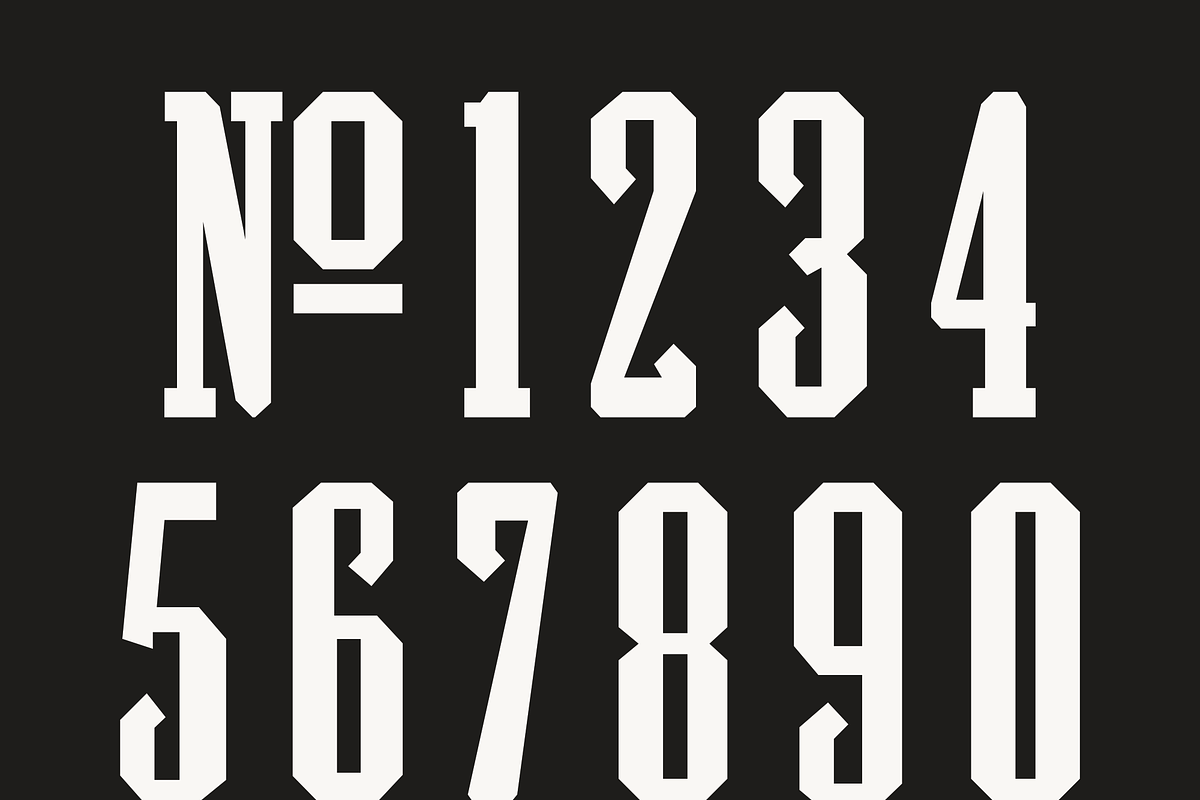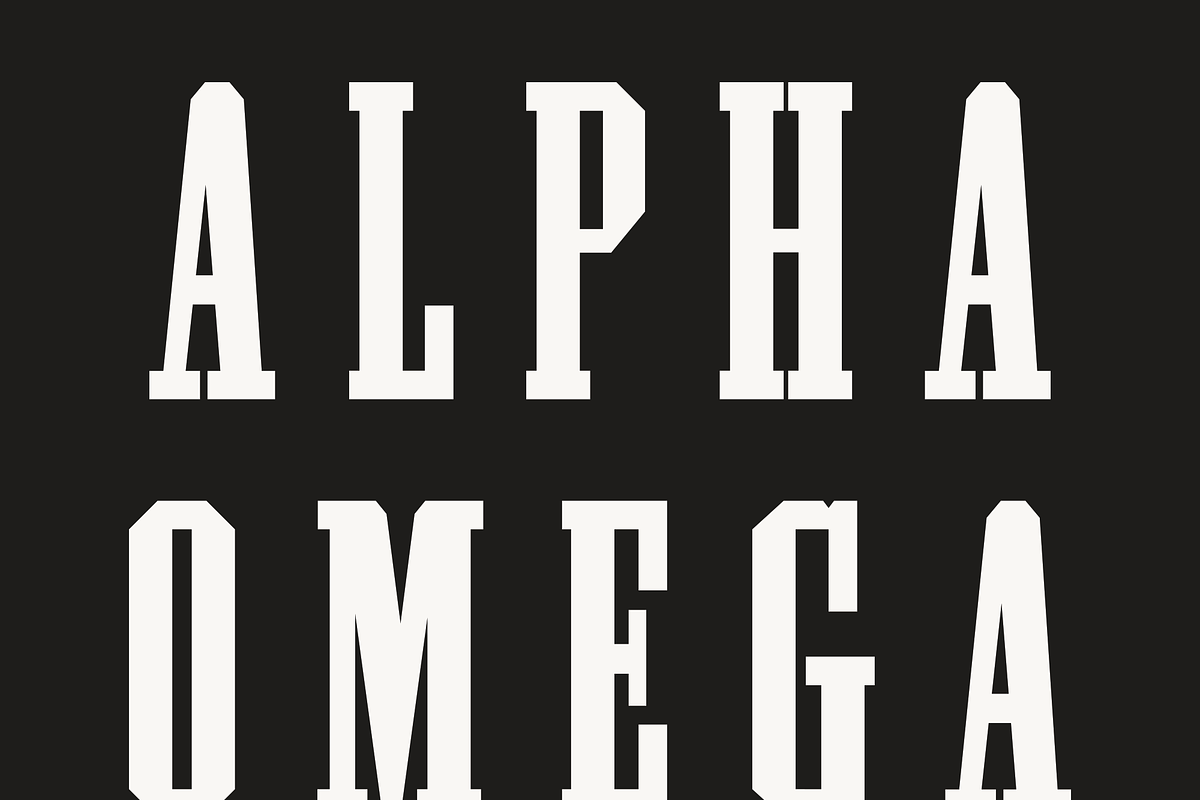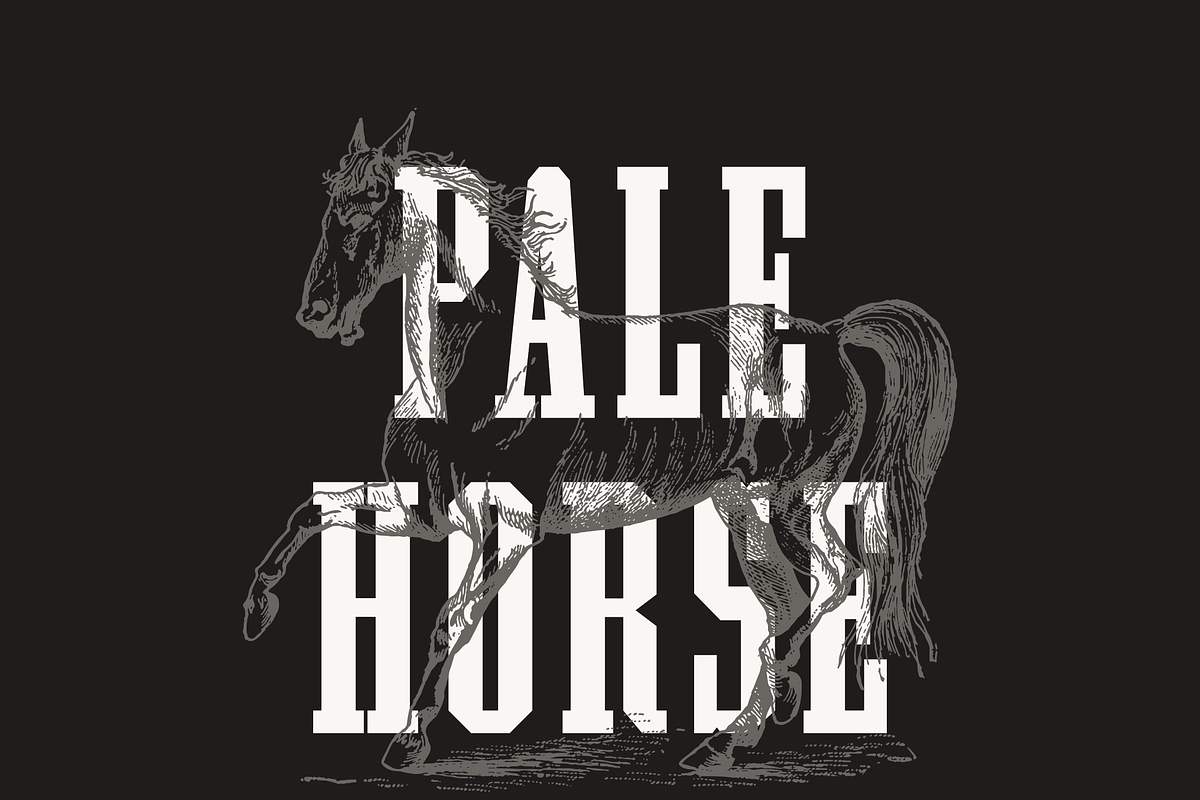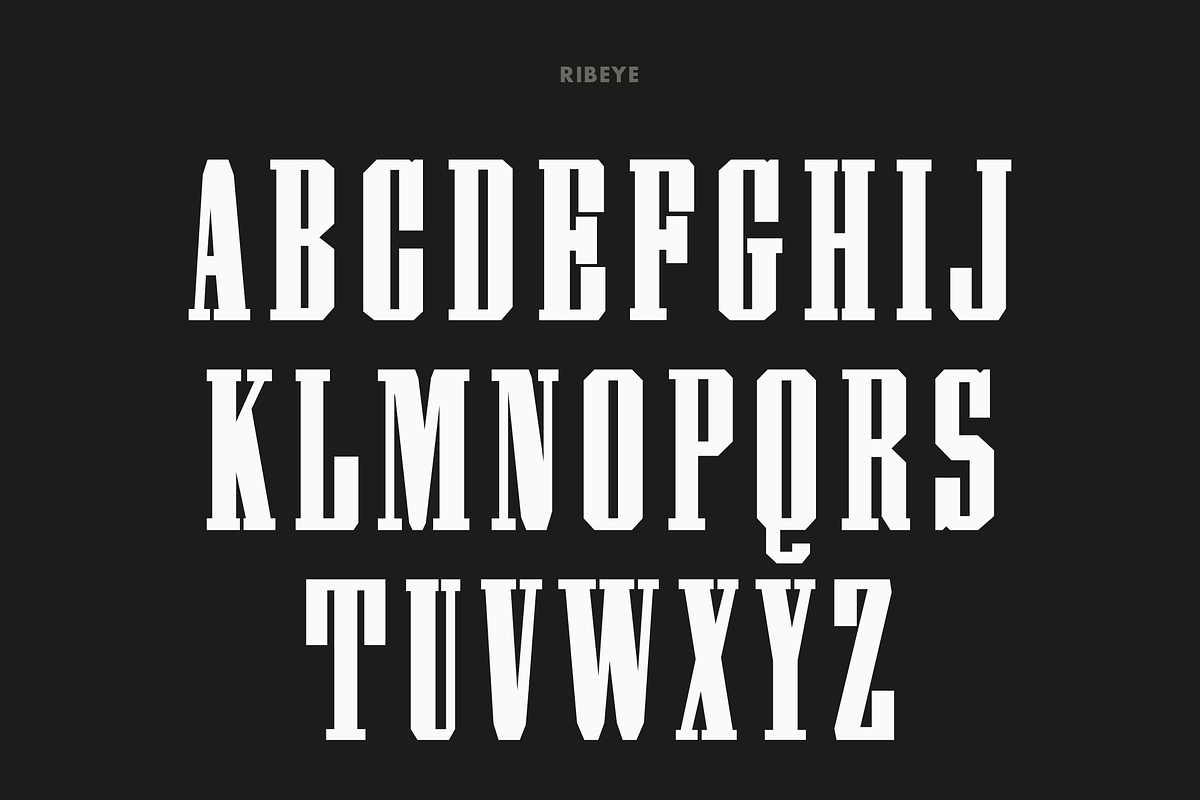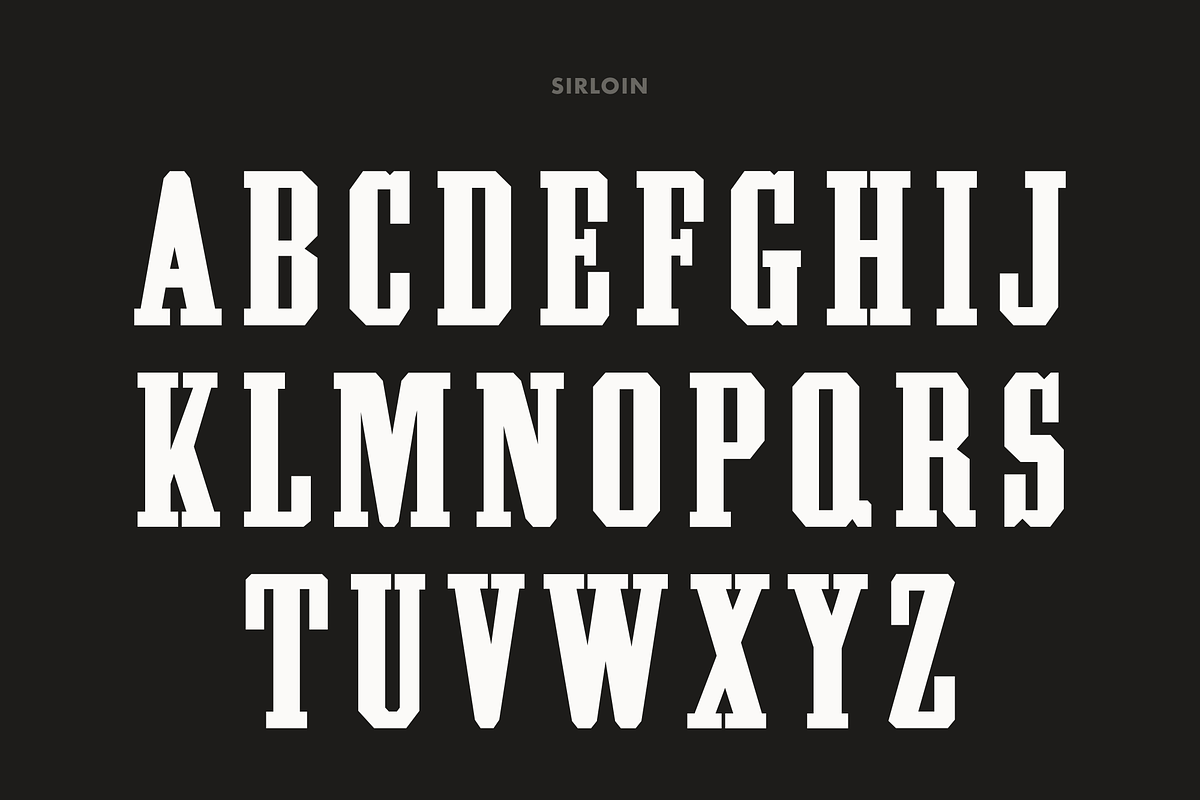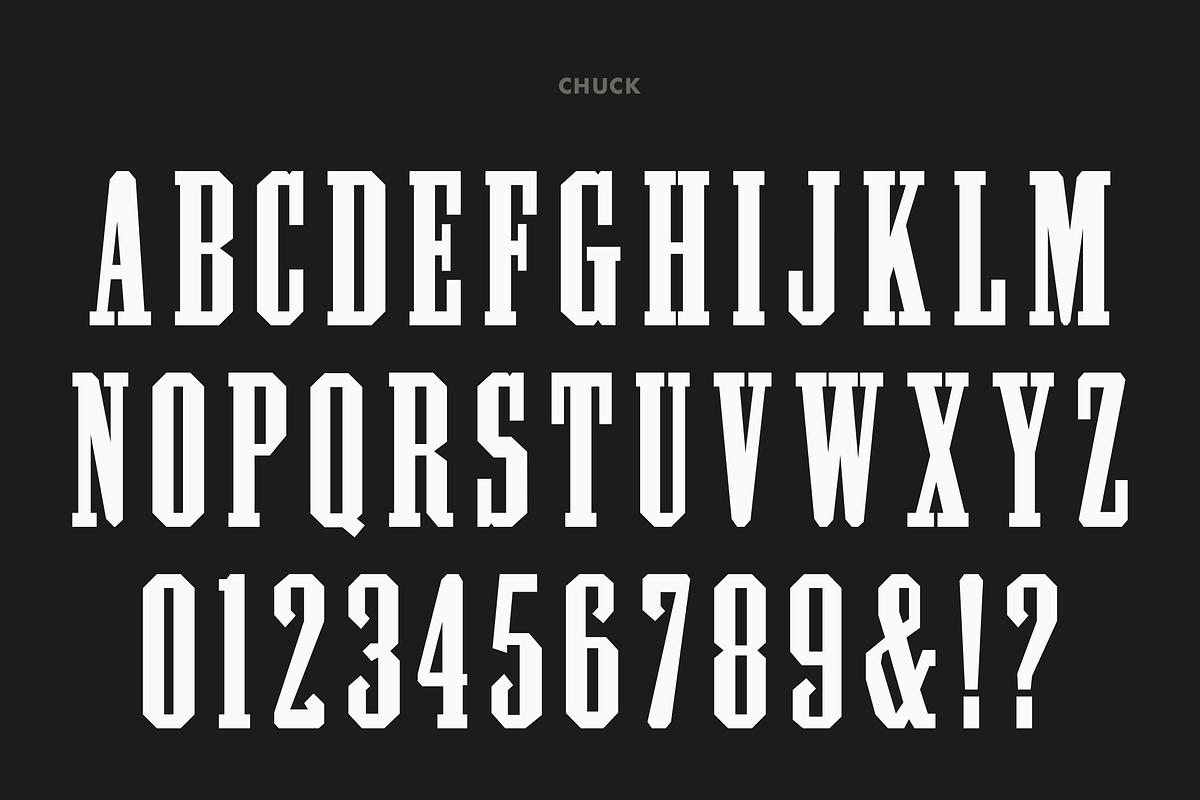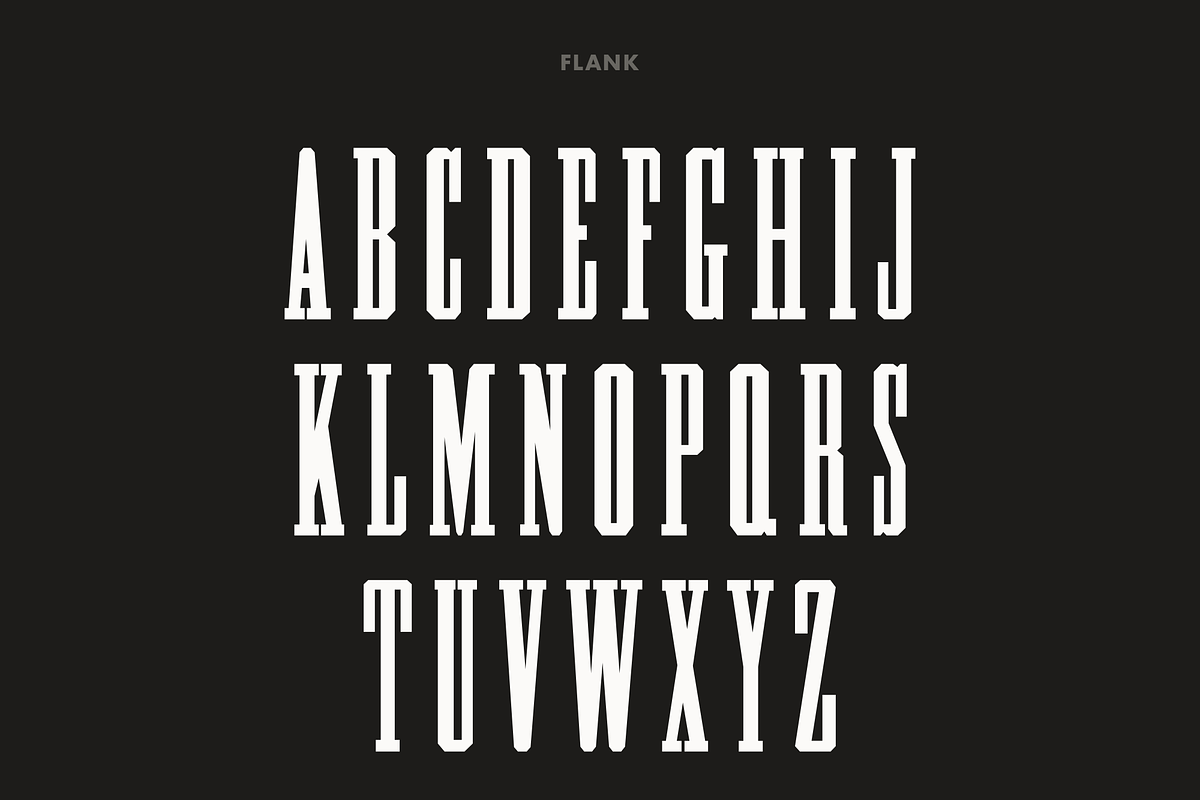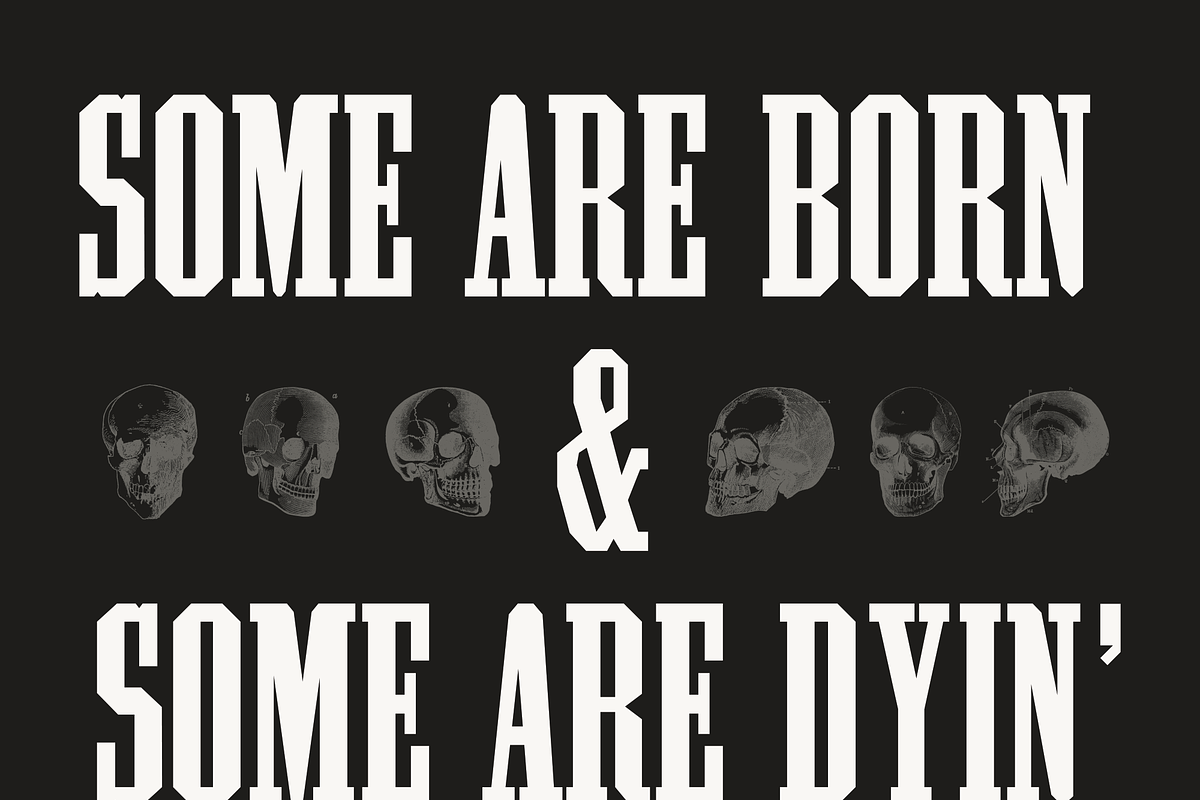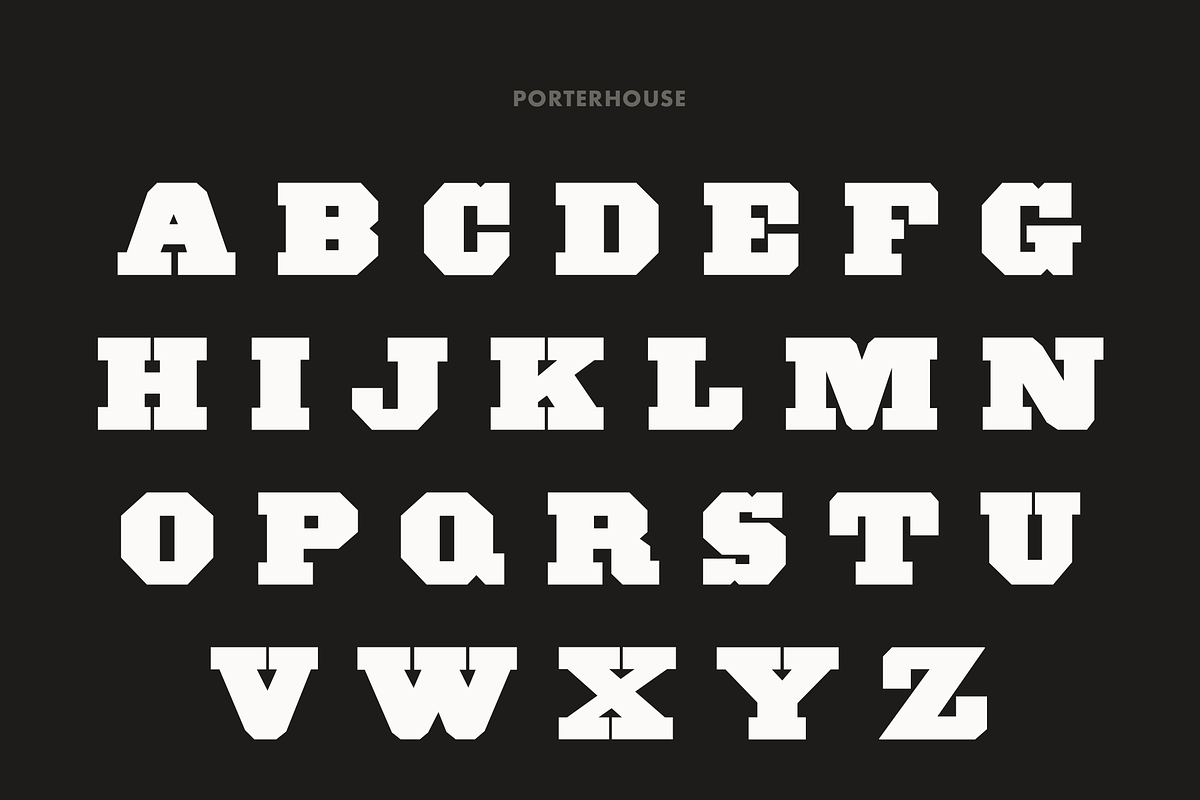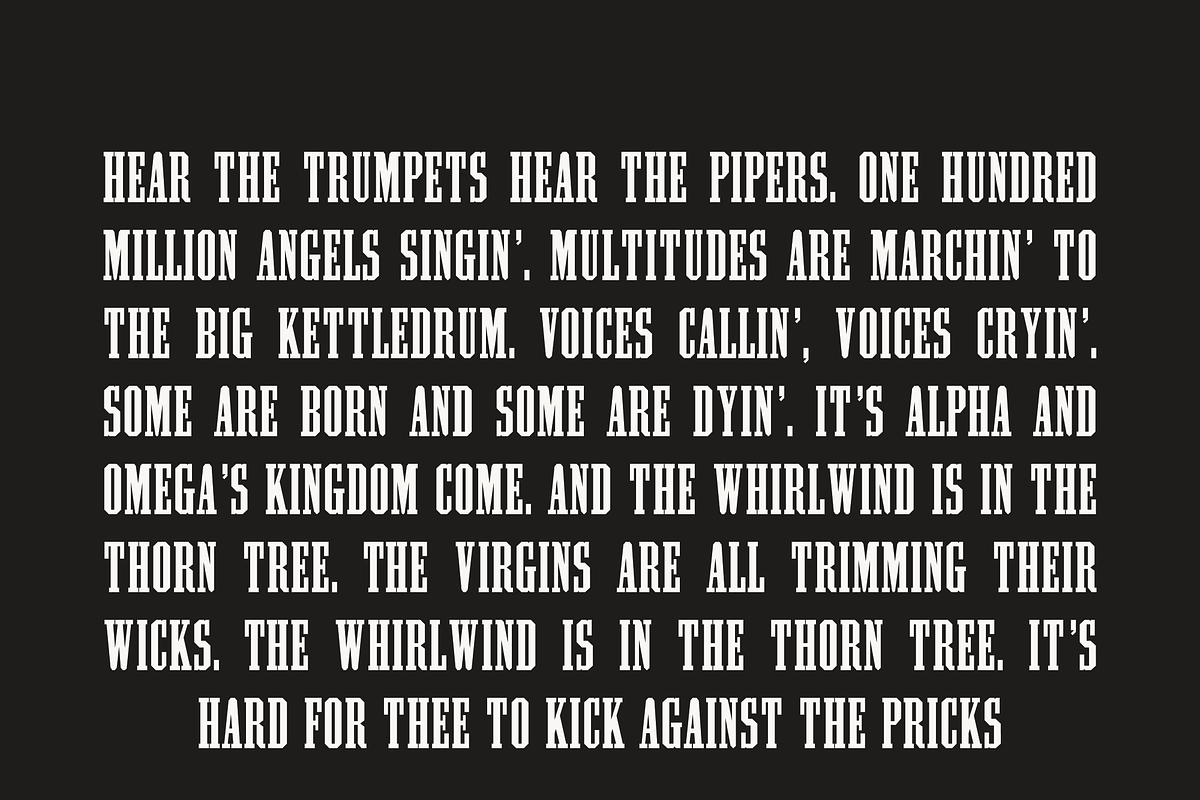
Pale Horse
Now with 5 “cuts”, Pale Horse is perfect for packing a mean punch. Various weights and widths will allow you to fit just about anything into any size space.
Pale Horse is part of a series of reviving wood type. They are drawn from scans of wood type, therefore they are far from pixel perfect. Minor adjustments and liberties are made to each of the typefaces.